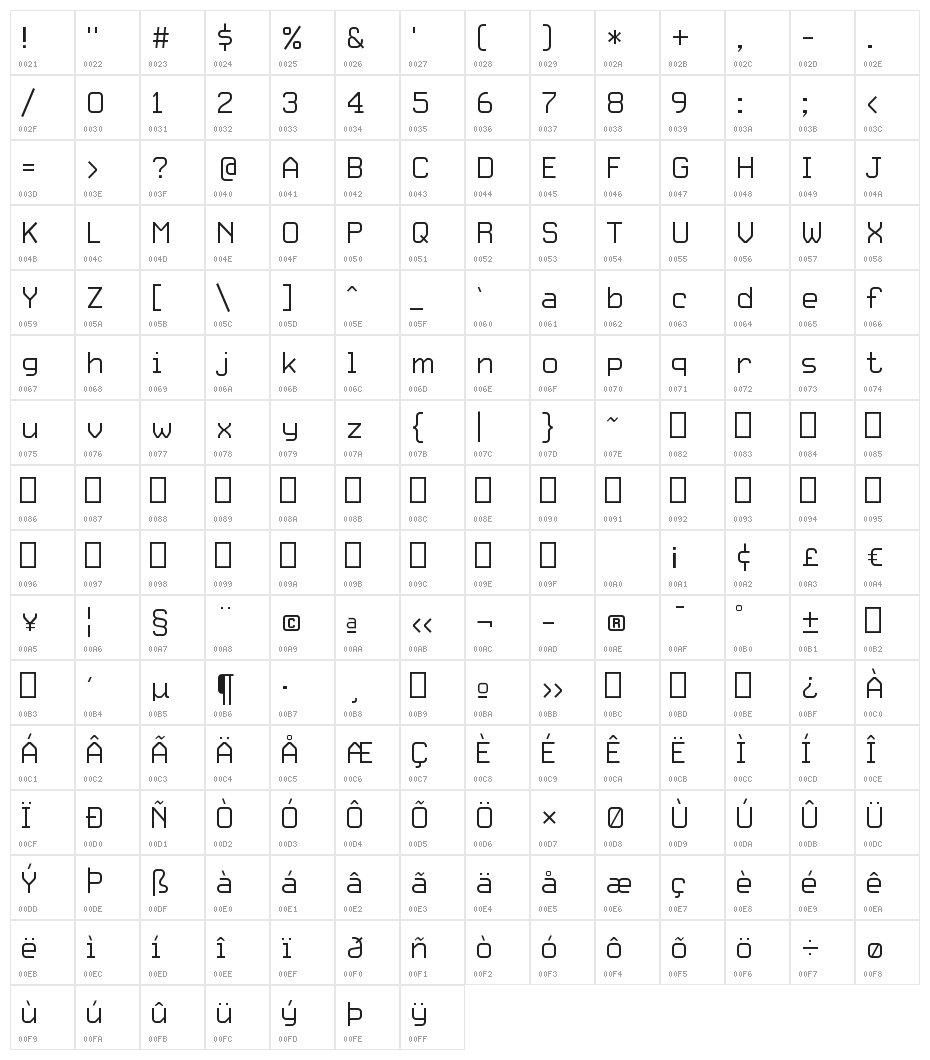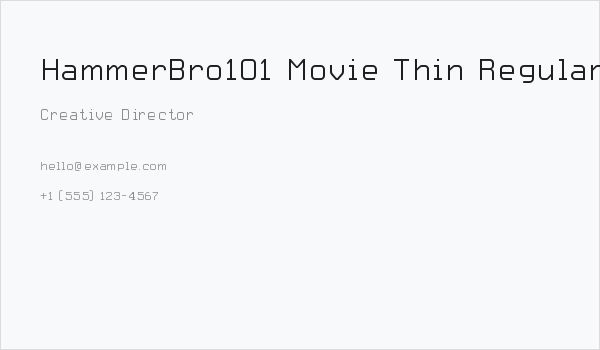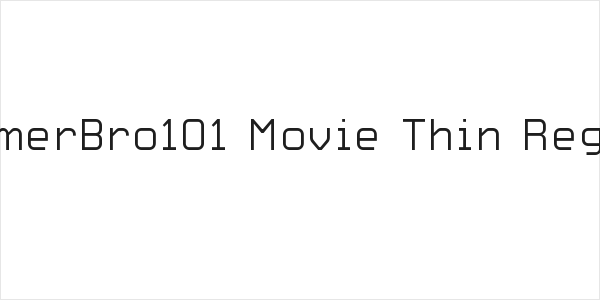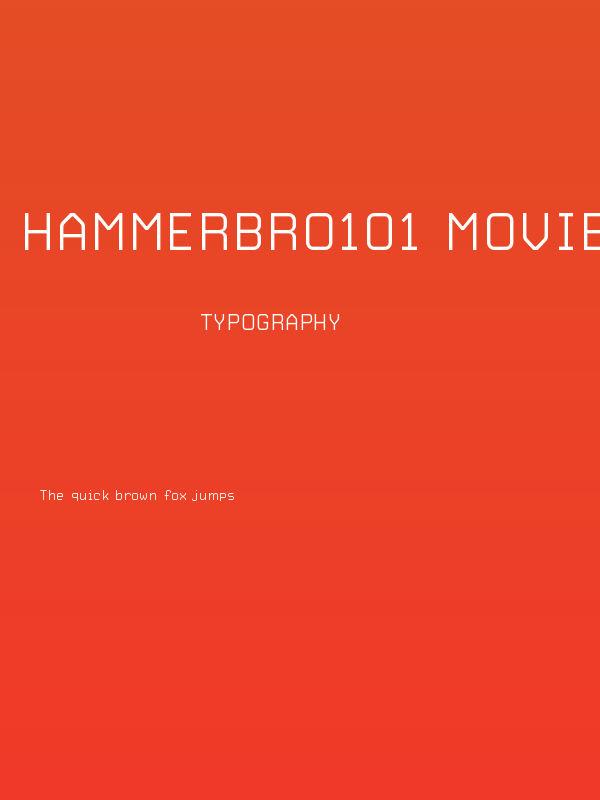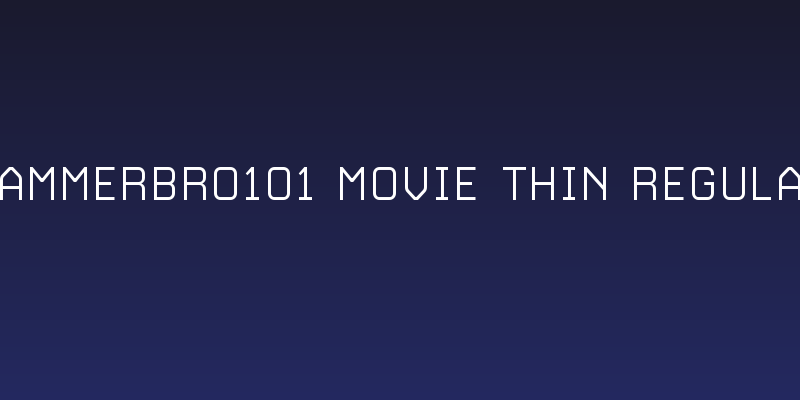
HammerBro101 Movie Thin Regular Font
HammerBro101 Movie Thin Regular Description
This font features a clean and modern design with a geometric structure. The characters are uniformly thin, providing a sleek and minimalist appearance. The uppercase and lowercase letters maintain a consistent height and width, creating a harmonious look. The numerals are straightforward and align well with the overall style, while the special characters are distinct yet cohesive with the rest of the set. The font's simplicity and clarity make it versatile for various design applications.
| Use Case | Headlines, Logos, User Interfaces |
| Proposed Projects | Ideal for tech branding, minimalist posters, modern web design, and user interfaces. |